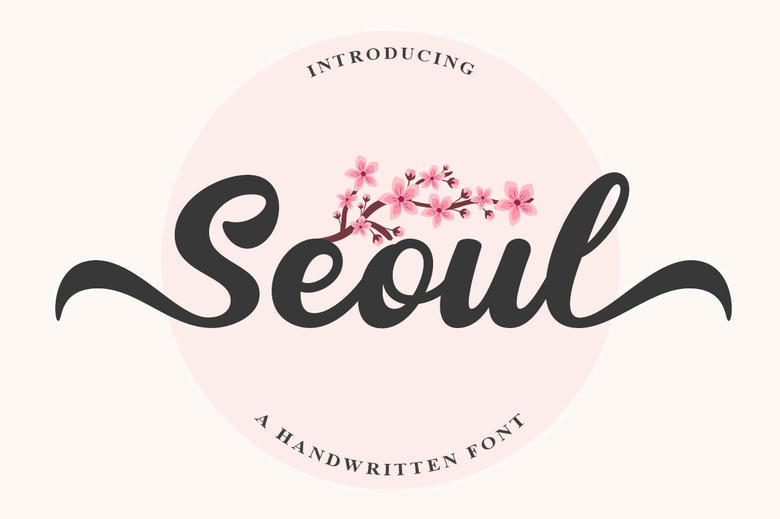
Seoul Font
Seoul is a delicate, cute, and stylish handwritten font, suitable for a wide spectrum of applications. From greeting cards to headlines, wedding themes, smooth, birthdays, quotes, stickers, or just overlays on images, this font will definitely elevate any creation.
Seoul Handwritten Script Font